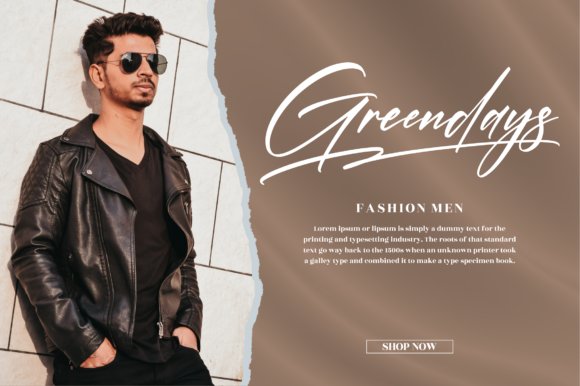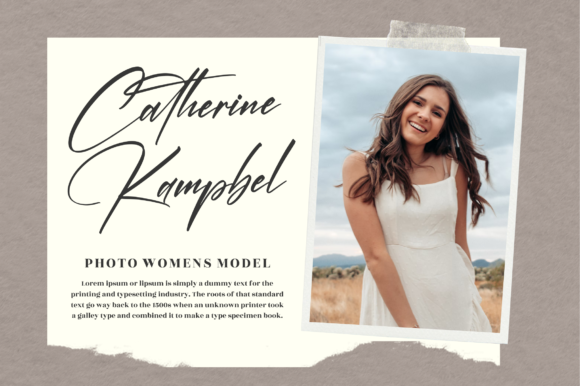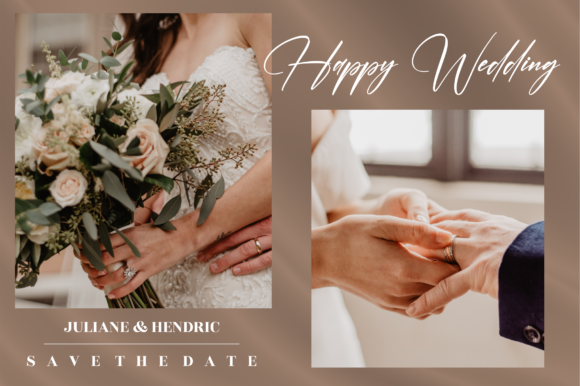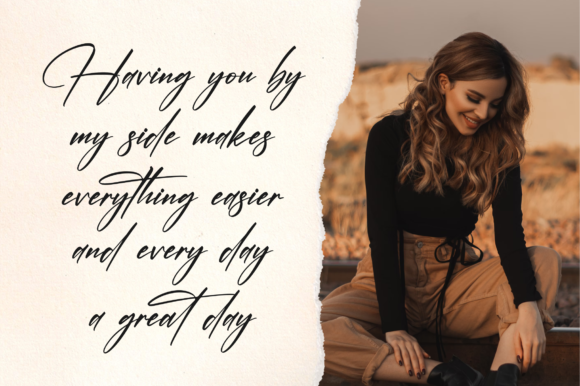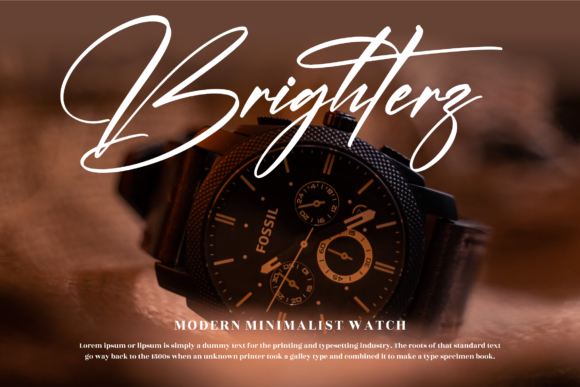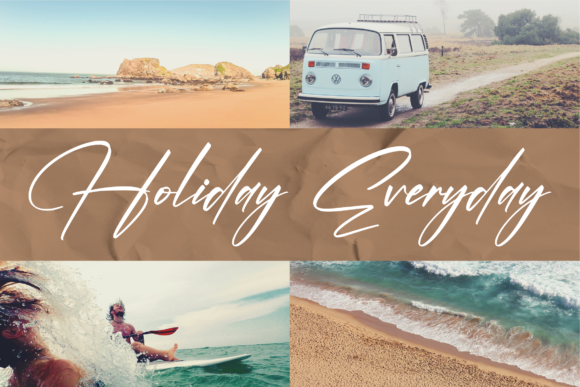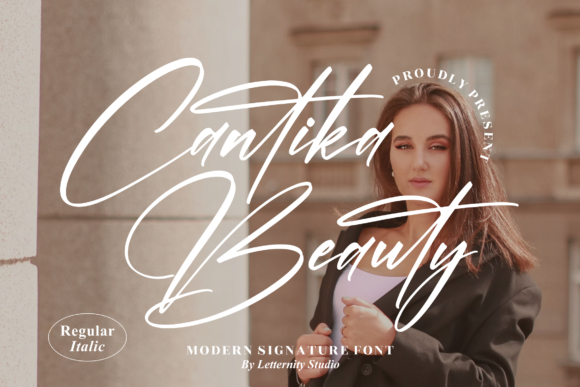
Cantika Beauty Font: Elevate Your Designs with Elegance
In the world of typography, a beautiful font can make all the difference in creating stunning designs that capture the essence of your brand or project. Cantika Beauty Font is an exquisite handwritten font that has been masterfully designed to become a true favorite among designers and crafters. With its classy calligraphic influences and contemporary feel, this font is perfect for those who want to add a touch of elegance to their work.
What Makes Cantika Beauty Font Special?
Cantika Beauty Font is a unique and sophisticated typeface that boasts a range of features that set it apart from other fonts. Here are some of its key characteristics:
- Handwritten with love: Cantika Beauty Font is a carefully crafted handwritten font that exudes warmth and personality. Its elegant strokes and curves make it perfect for creating beautiful text-based designs.
- Classy calligraphic influences: This font draws inspiration from traditional calligraphy, giving it a sophisticated and refined feel. The calligraphic influences add a touch of luxury and elegance to any design.
- Contemporary and fresh: Despite its classic influences, Cantika Beauty Font feels modern and fresh. Its clean lines and subtle nuances make it perfect for designers who want to create contemporary designs with a touch of sophistication.
Use Cases for Cantika Beauty Font
Cantika Beauty Font is a versatile typeface that can be used in a variety of design projects. Here are some use cases where this font truly shines:
- Logos and branding: Cantika Beauty Font is perfect for creating elegant logos and branding materials. Its sophisticated feel makes it ideal for luxury brands, beauty products, and high-end services.
- Wedding and event designs: This font is a popular choice for wedding and event designs, including invitations, programs, and place cards. Its romantic feel and elegant strokes make it perfect for creating beautiful and memorable designs.
- Packaging and product design: Cantika Beauty Font can be used to create stunning packaging and product designs. Its contemporary feel and luxurious influences make it ideal for high-end products and premium brands.
- Digital and print media: This font can be used in a variety of digital and print media, including social media graphics, blog posts, and magazine articles. Its clean lines and elegant strokes make it perfect for creating engaging and readable content.
Tips for Using Cantika Beauty Font
To get the most out of Cantika Beauty Font, here are some tips to keep in mind:
- Pair it with contrasting fonts: Cantika Beauty Font looks stunning when paired with contrasting fonts, such as bold sans-serif fonts or elegant script fonts.
- Experiment with font sizes and colors: This font looks great in a variety of font sizes and colors. Experiment with different combinations to find the one that works best for your design.
- Use it sparingly: Cantika Beauty Font is a elegant and sophisticated typeface. Use it sparingly to add a touch of luxury and elegance to your design.
Cantika Beauty Font is a stunning handwritten font that is perfect for designers and crafters who want to add a touch of elegance to their work. With its classy calligraphic influences, contemporary feel, and PUA encoding, this font is a versatile typeface that can be used in a variety of design projects. Whether you’re creating logos, wedding designs, packaging, or digital media, Cantika Beauty Font is sure to elevate your designs and make them stand out.